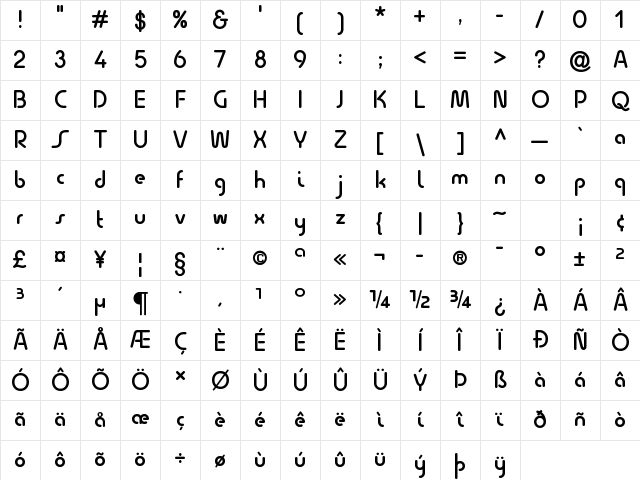
Complete Quesat Demi Bold Demo Regular glyph index. Displaying only characters natively supported by Quesat Demi Bold Demo Regular font.
Quesat Demi Bold Demo is a composed and adaptable typeface that performs quietly and consistently across a wide range of design contexts. Its bold stroke weight gives it real presence on the page.